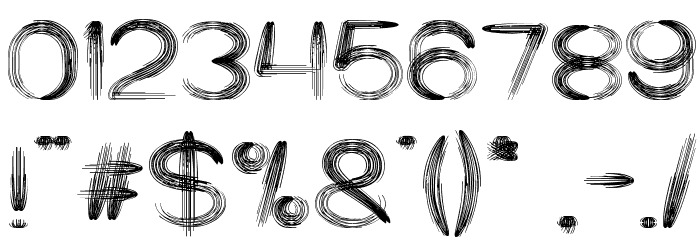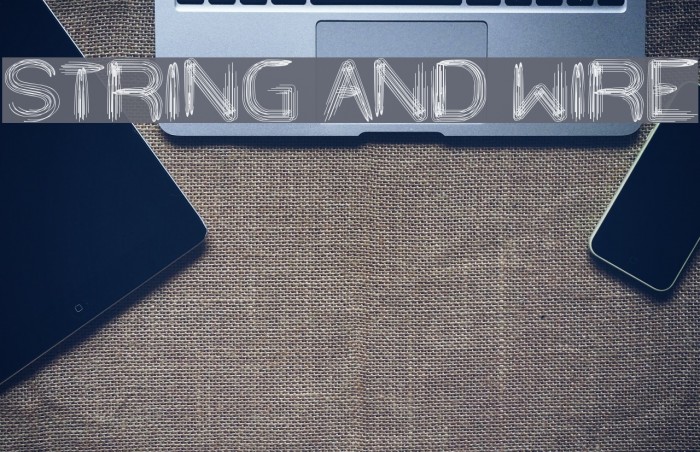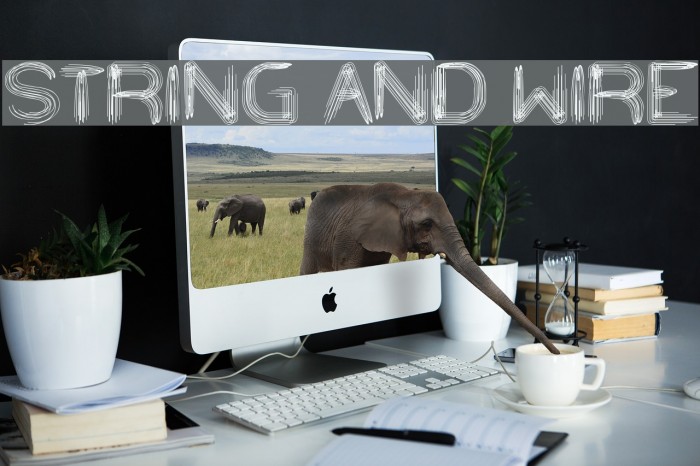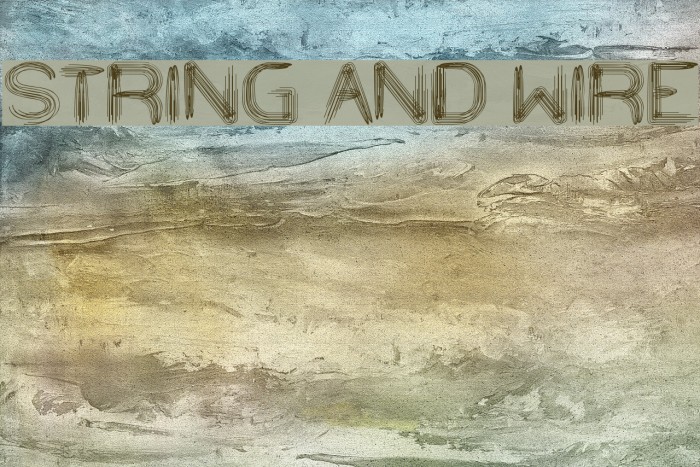
STRING AND WIRE Font
STRING AND WIRE Description
This font features a unique and artistic design, resembling hand-drawn wire or string formations. Each character is composed of multiple overlapping lines, creating a textured and dynamic appearance. The uppercase and lowercase letters maintain a consistent style, with rounded edges and a playful, informal look. The numbers and special characters follow the same design principles, ensuring uniformity across the entire set. This font's distinctive style makes it stand out, offering a creative and unconventional aesthetic that is both modern and artistic.
A hand-drawn, wire-like font with a textured and artistic appearance from Distorted Eroded fonts.
- Proposed Projects: Ideal for creative projects such as posters, album covers, artistic branding, and unique invitations.
- Overall Style: Artistic, Modern
- Use Case: Logos, Headlines, Artistic Displays